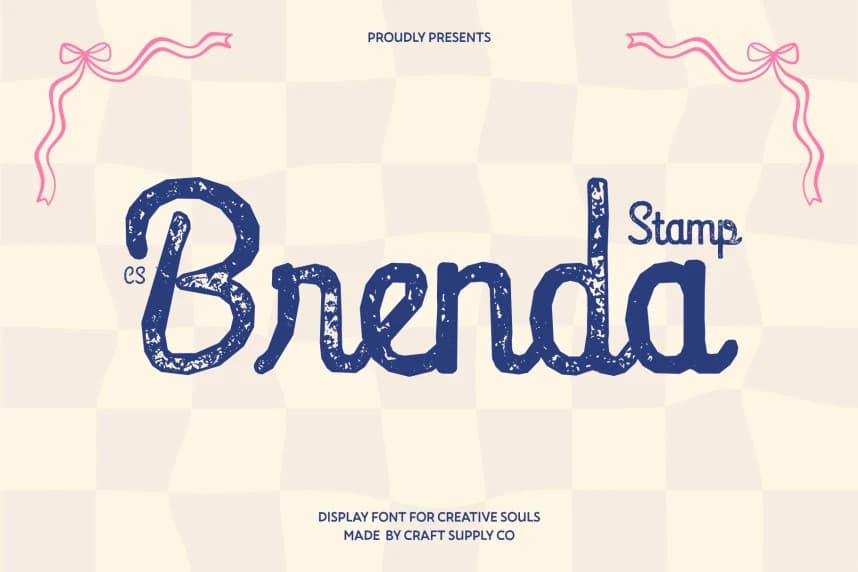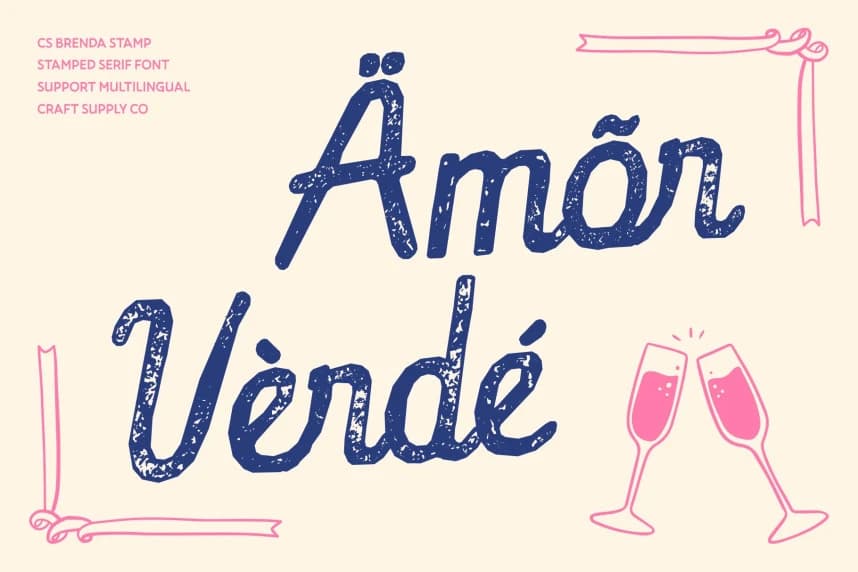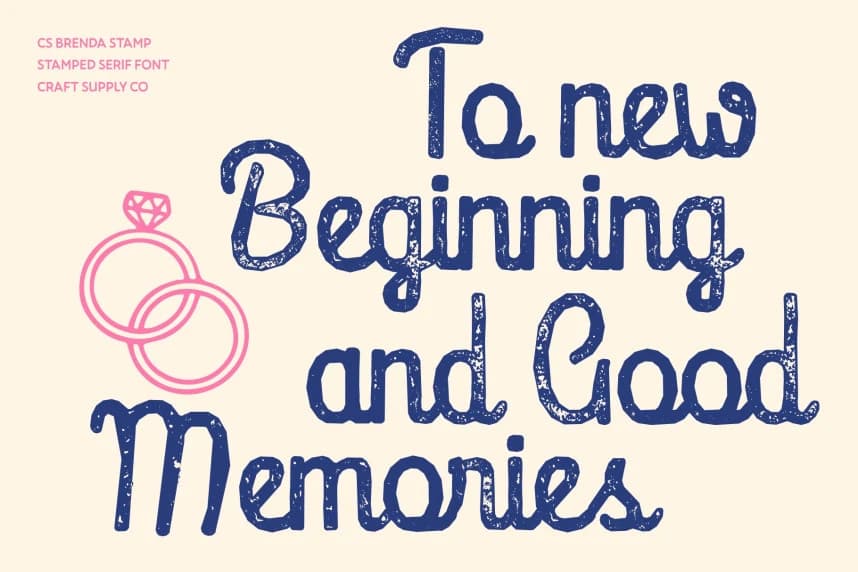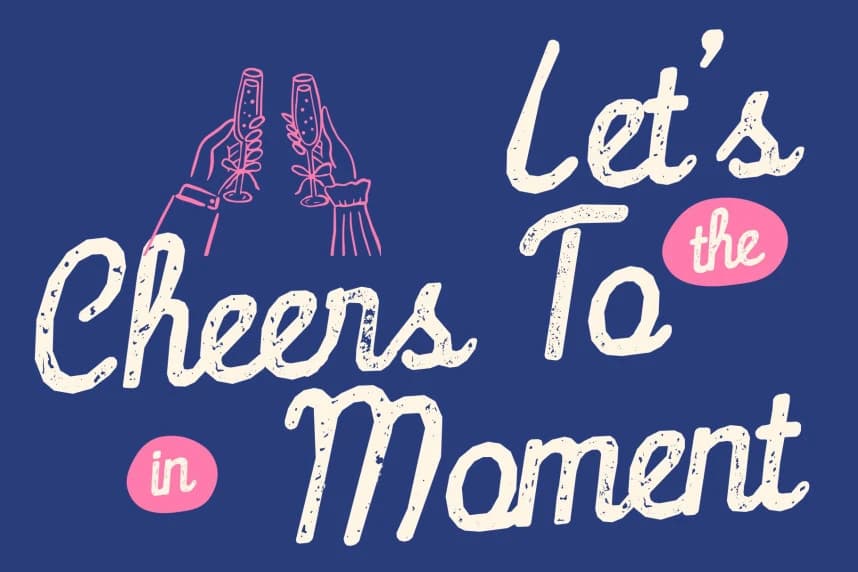
CS Brenda Stamp Font
CS Brenda Stamp Font – Minimalist Script with Textured Sweetness Contemporary Minimalist Style with Stamped Character. This is a modern script font that blends a clean, minimalist handwritten style with a subtle stamped texture.